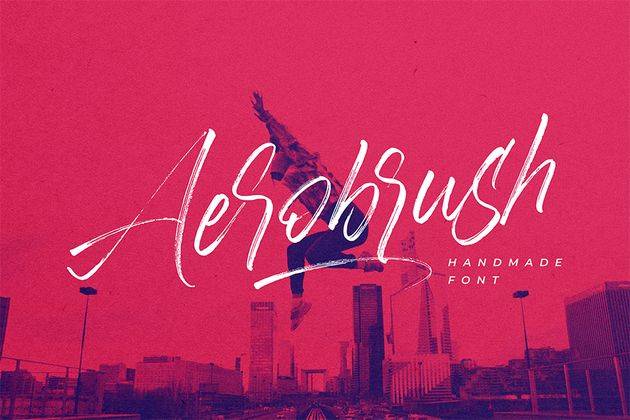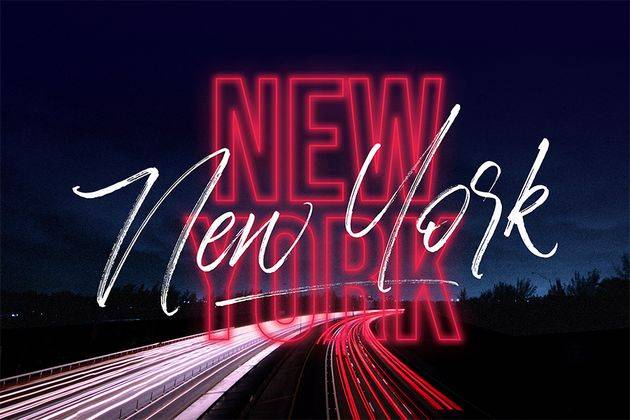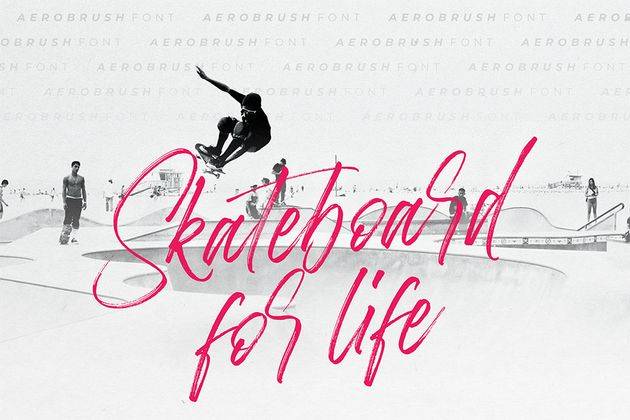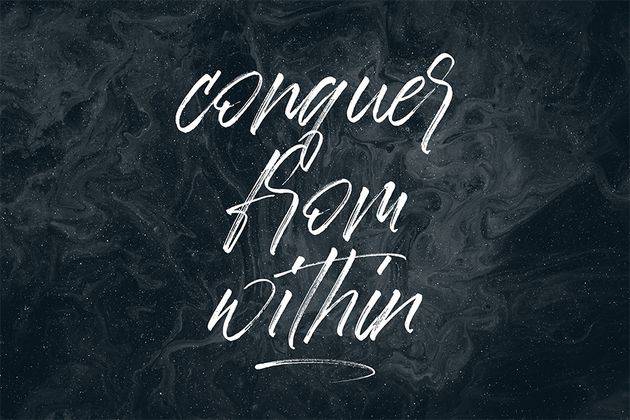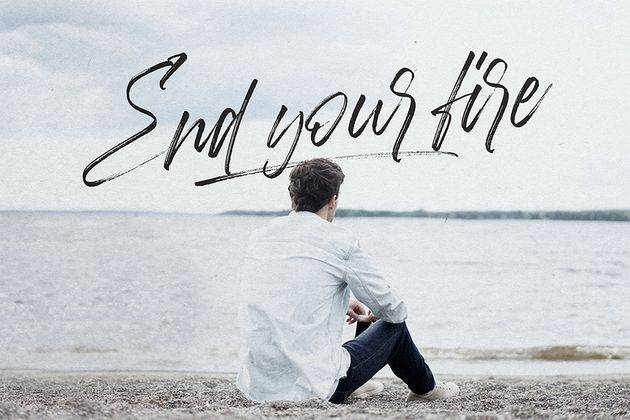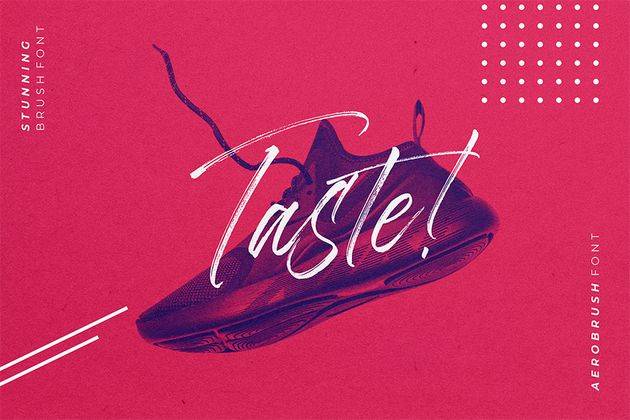
Aerobrush Handlettering Brush Script is an energetic and elegant script font that mimics spontaneous brush strokes with a delicate, slightly textured effect. Its slender and airy letterforms convey a modern, artistic vibe perfect for creative branding, invitations, and expressive headlines. This font shines where a personal, handcrafted look is desired, adding a stylish yet casual flair to design projects.
Aerobrush Handlettering Brush Script Font
About Aerobrush Handlettering Brush Script Font